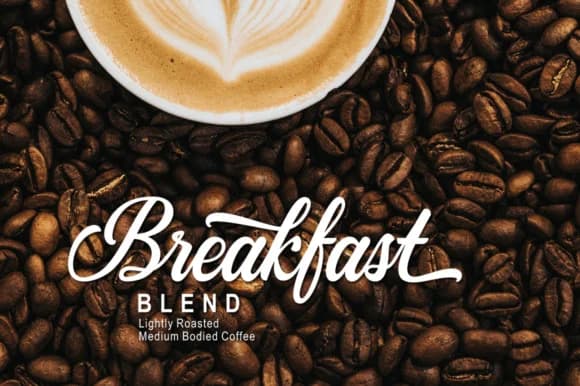
Querthy Script Font by Matra Creative is a brush script that authentically channels the fluidity and personality of genuine pen-and-ink lettering. The typeface infuses your typography with handwriting nuances, featuring abundant alternates and stylistic variations that let you craft text with charming organic irregularities. Each character carries the hallmarks of natural handwork, from subtle stroke variations to thoughtful flourishes, creating an aesthetic that feels genuinely personal.
This script excels in luxury and lifestyle applications where authenticity drives purchasing decisions and brand perception. Whether designing wedding invitation suites with coordinated stationery, crafting label copy for artisanal skincare and product lines, creating Instagram graphics for fashion and lifestyle influencers, or developing brand identities for boutique retailers and premium services, Querthy delivers the handcrafted quality that resonates with discerning audiences. The multiple glyph variations and swash options provide visual richness without requiring workarounds or manual adjustments to achieve natural variation in your layouts.
The font's refined character makes it particularly effective for upscale branding contexts where genuine expression and visual authenticity matter. From personalized packaging and stationery to high-end editorial design work, Querthy maintains visual elegance while preserving that essential warmth and humanity that hand-lettering brings. Discover Querthy Script Font on Creative Fabrica and bring authentic character to your next design project.
Querthy Script Font is a script font that shines as a display or heading face. Pair it with a clean sans-serif or serif font for body text β the contrast creates a clear hierarchy while the two styles stay balanced and easy to read.